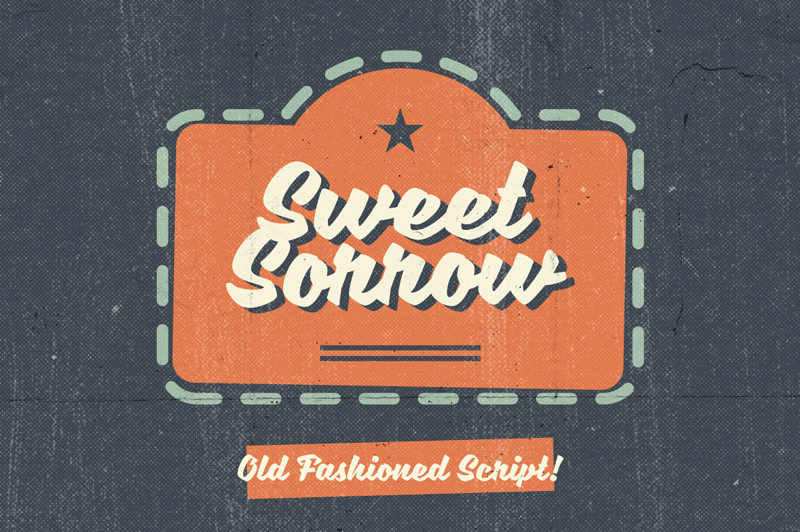
Sweet Sorrow is old fashioned script font that suitable for signage, t-shirt, logotype, or any vintage or retro related designs. Inspired by 1950s signs combined with modern dynamic curves to bring out the aesthetic impression of retro design style. MORE FONTS -> https://www.pixelo.net/product/the-fontastic-bundle/ |